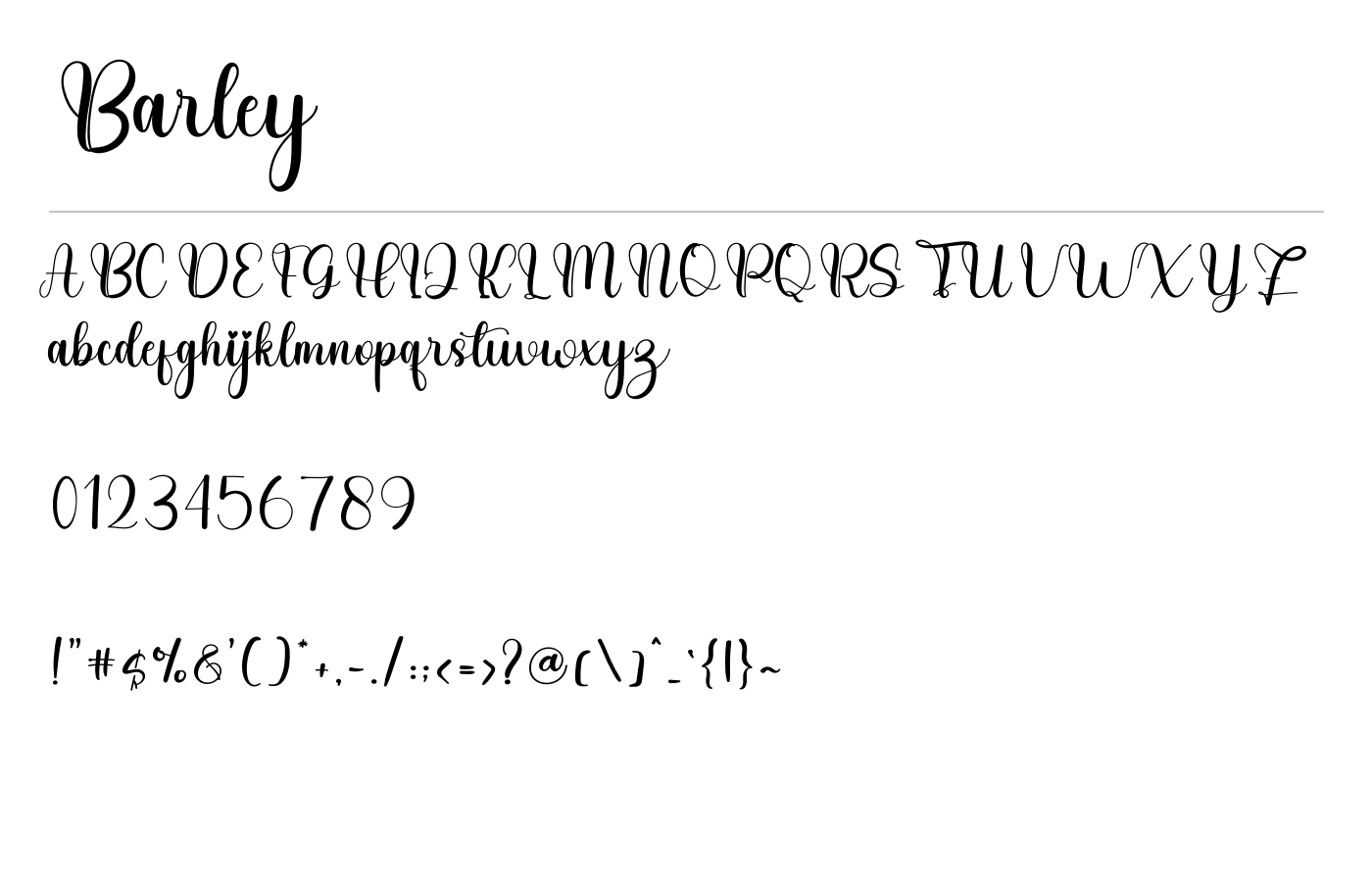
Barley is a graceful script font with a lively and elegant appearance, featuring smooth, flowing strokes and a playful yet refined charm. Its mix of thin and thicker lines, along with unique swashes and loops, make it ideal for wedding invitations, branding, and any design needing a warm, personal touch. This font works beautifully for headlines and decorative text where a stylish, handcrafted feel is desired.
Barley Font
About Barley Font